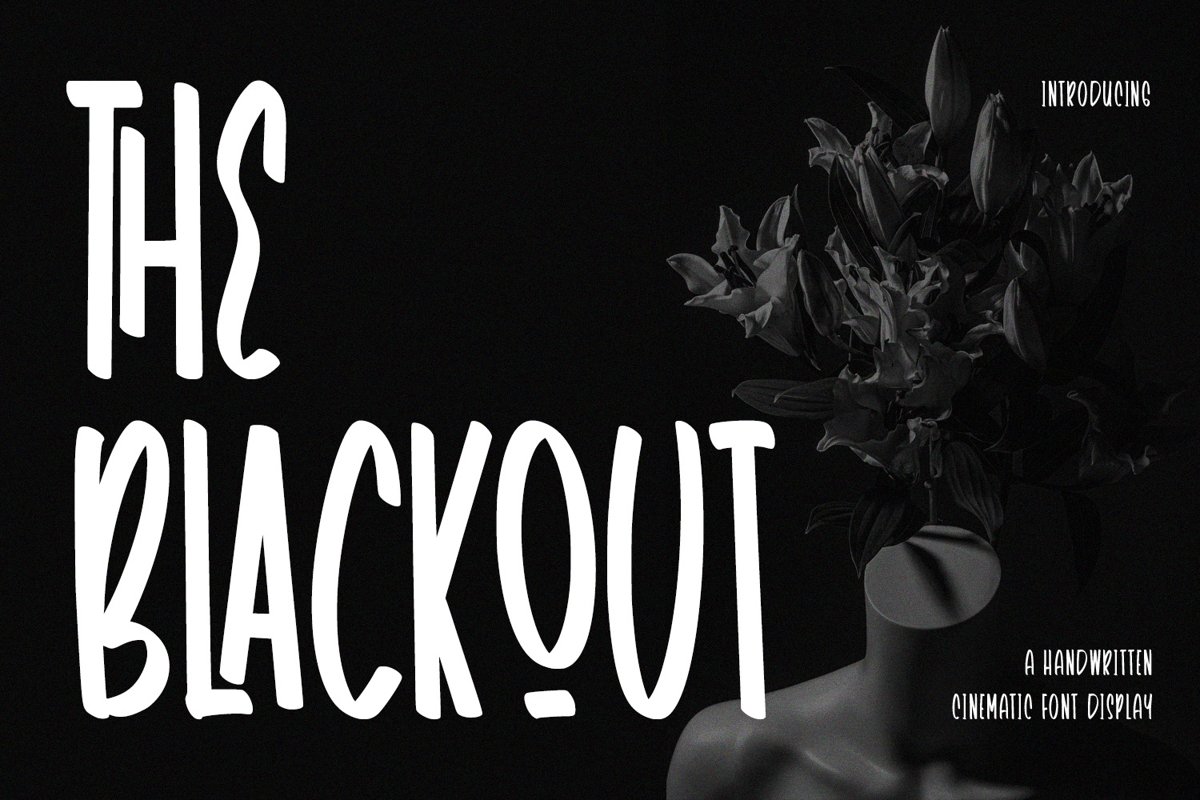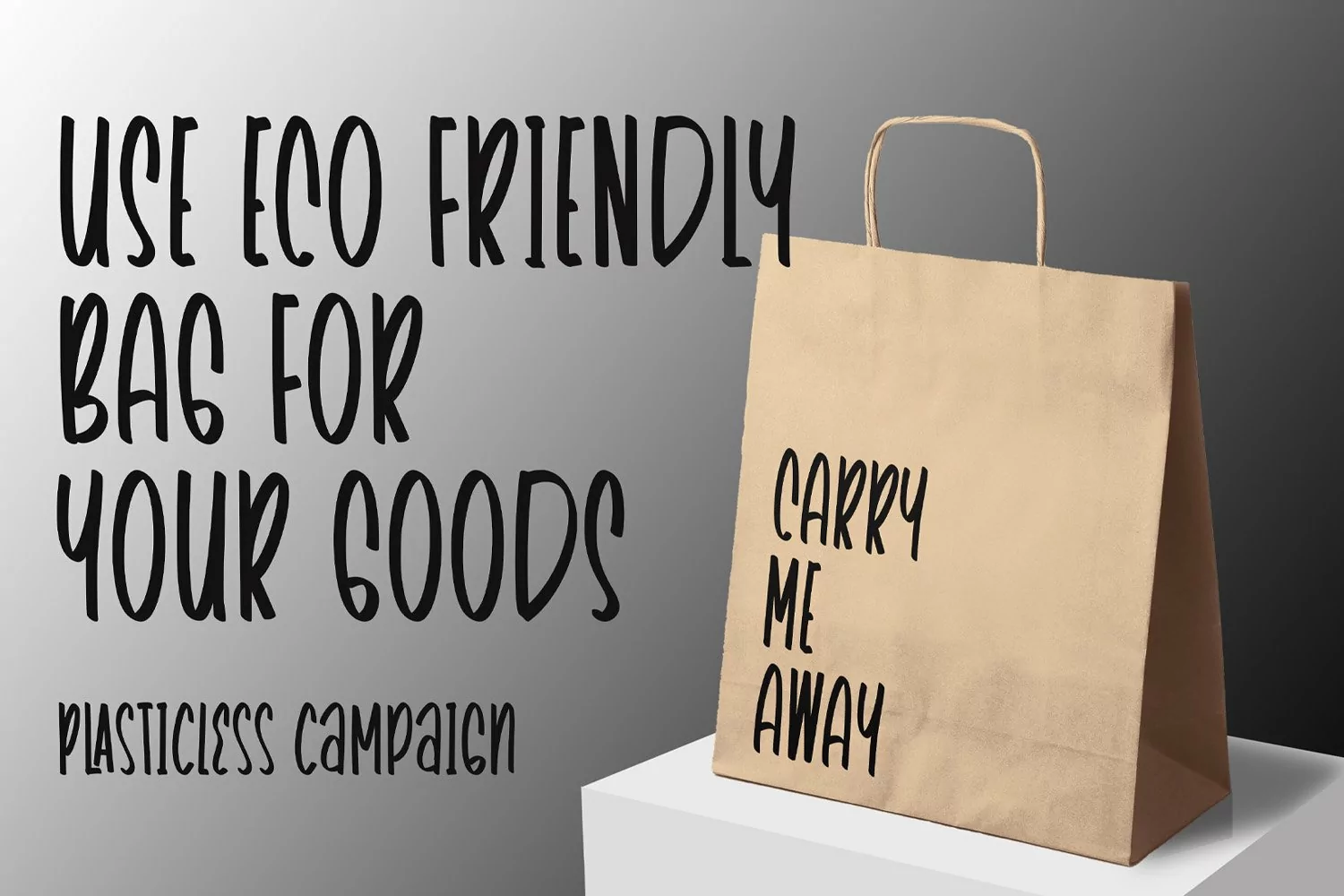
TheBlackout - Cinematic Display Font that contain lowercase, uppercase, symbol, and also support multi language. There’s a lot ligatures in this font. This Font also comes with ligatures, alternates and many more. this font suitable for fashion, branding, catalog and other design what you want.